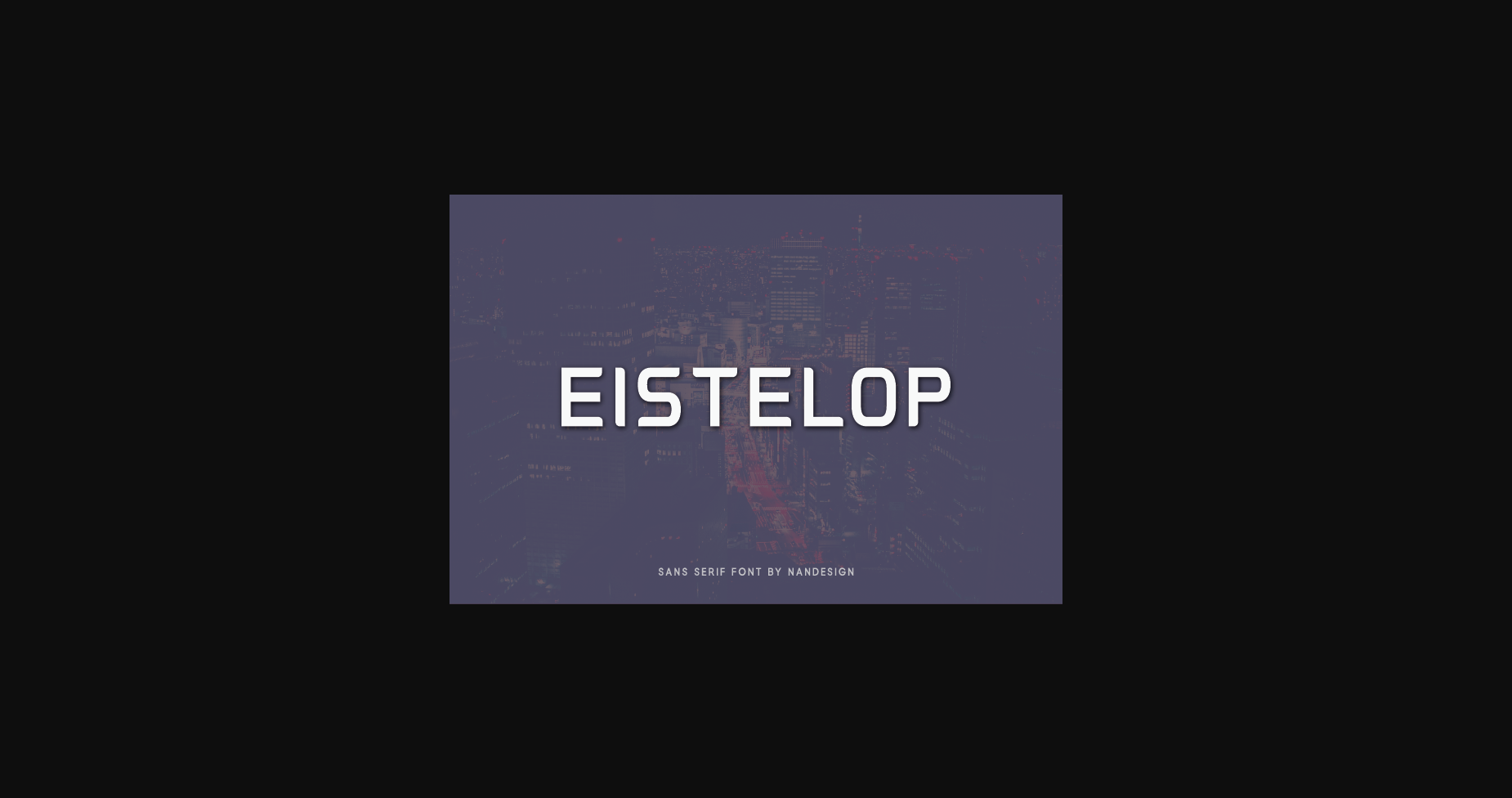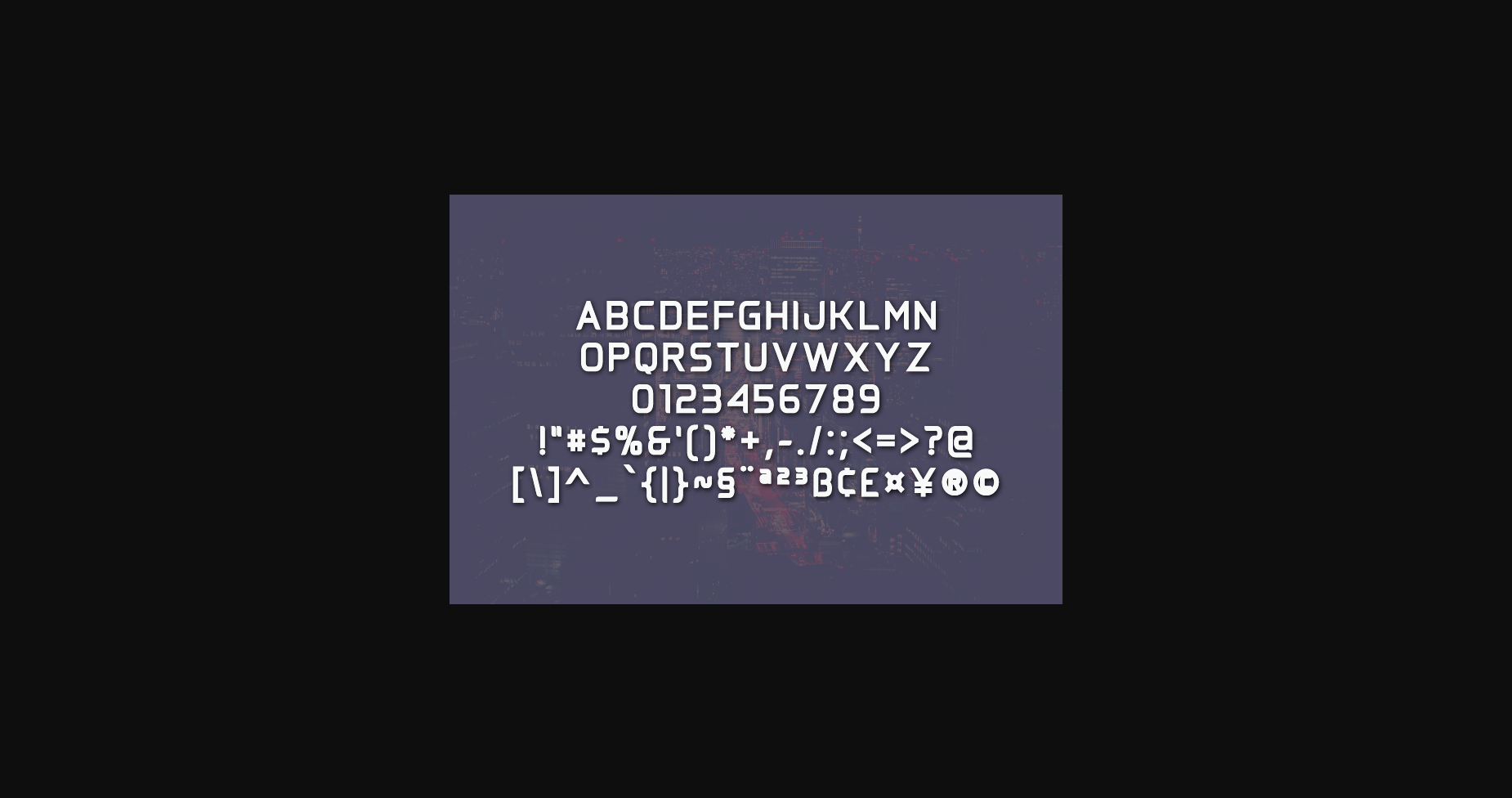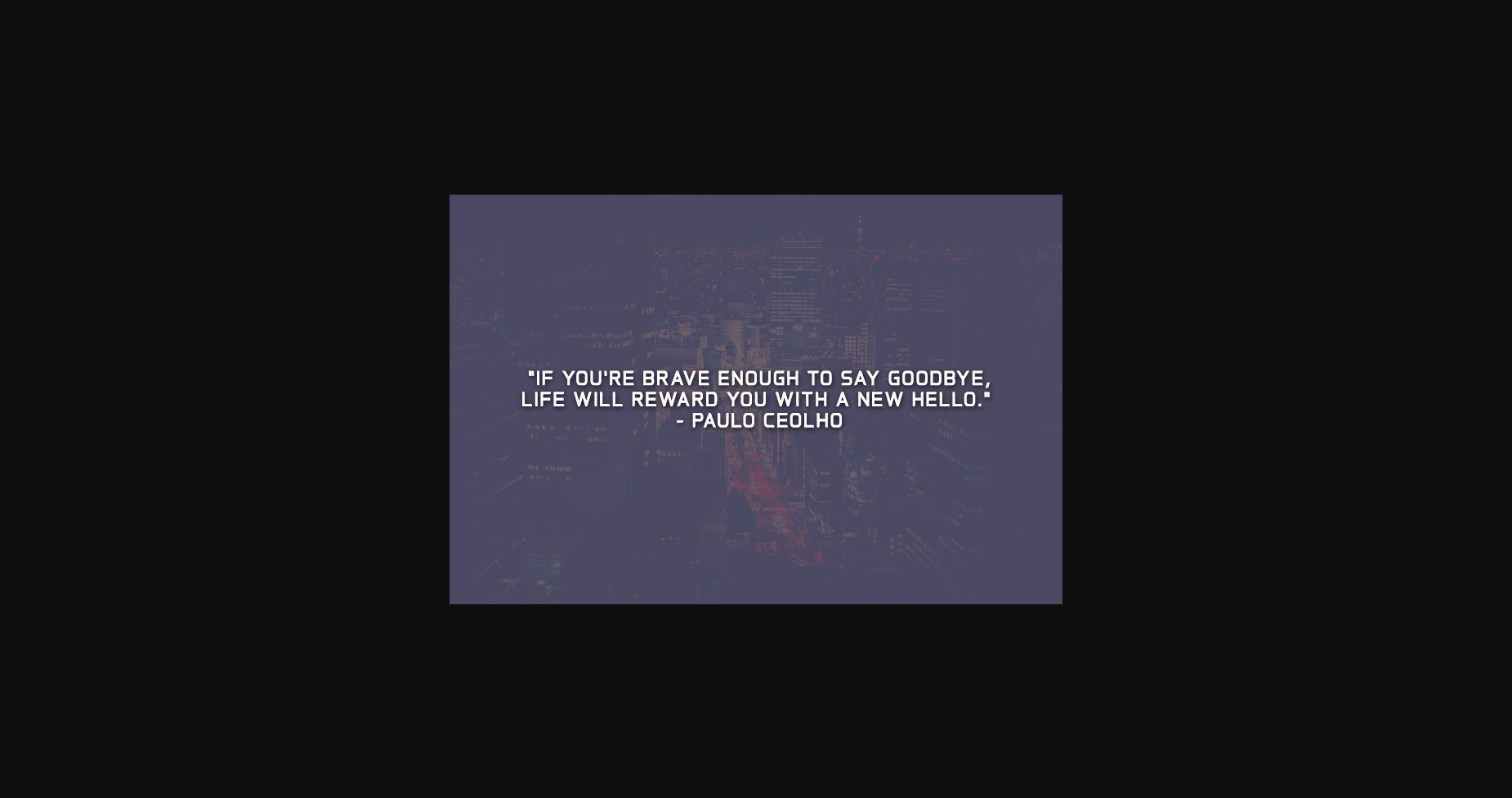
About Eistelop Font
Eistelop is a minimal, yet elegant sans serif font. Suitable to a wide variety of designs due to its neat and simple style, this font has the potential to become your favorite go-to font, no matter the occasion!